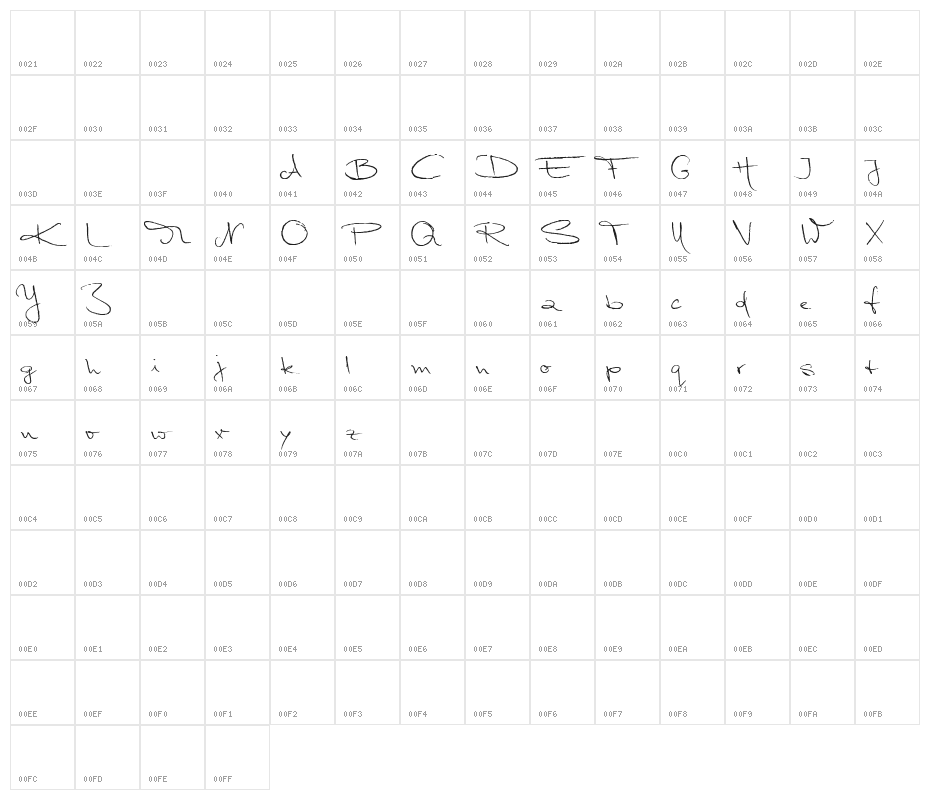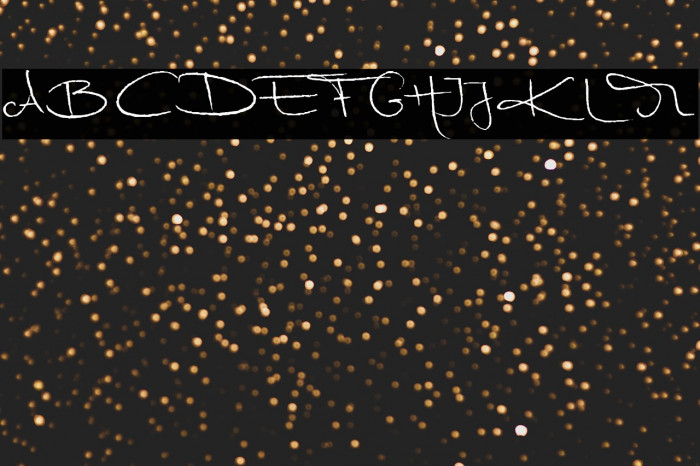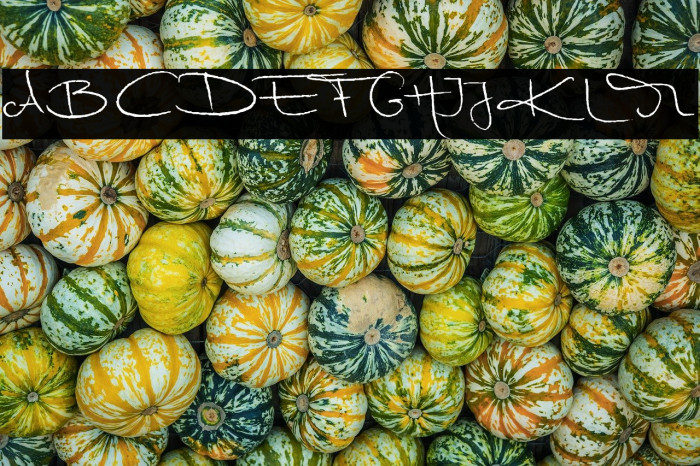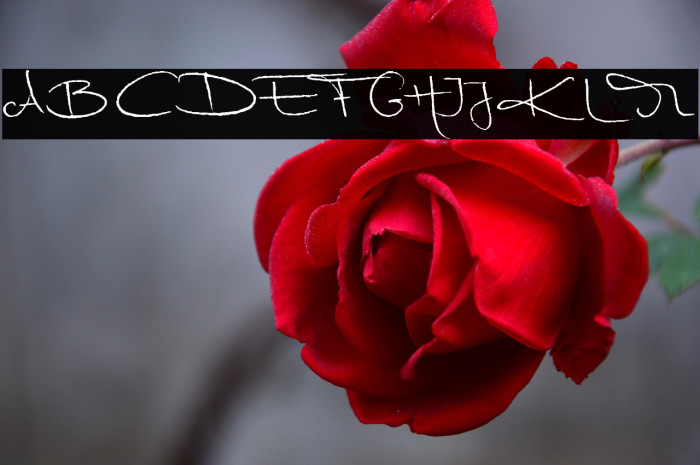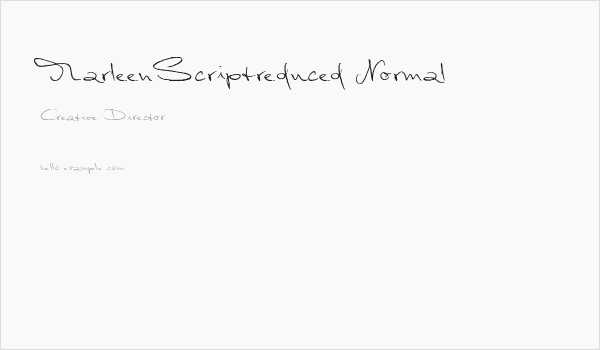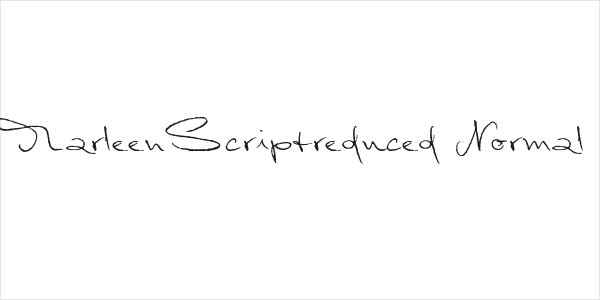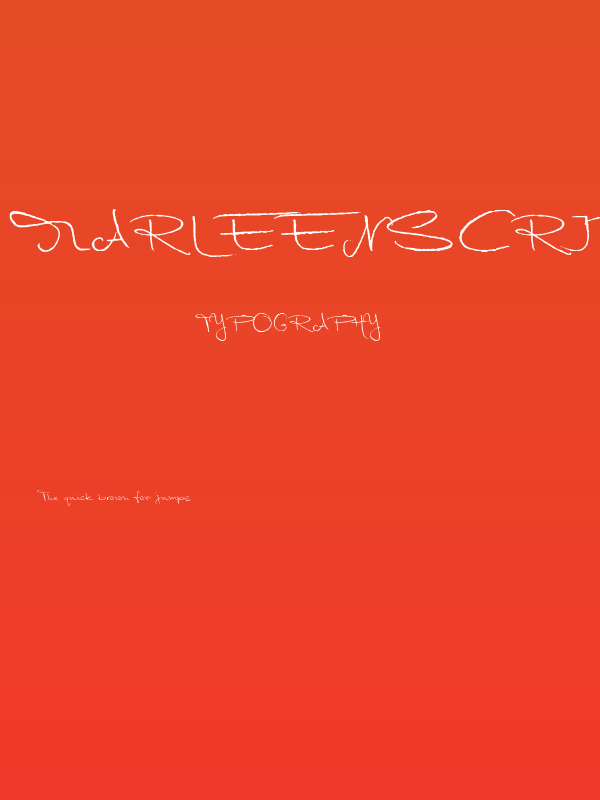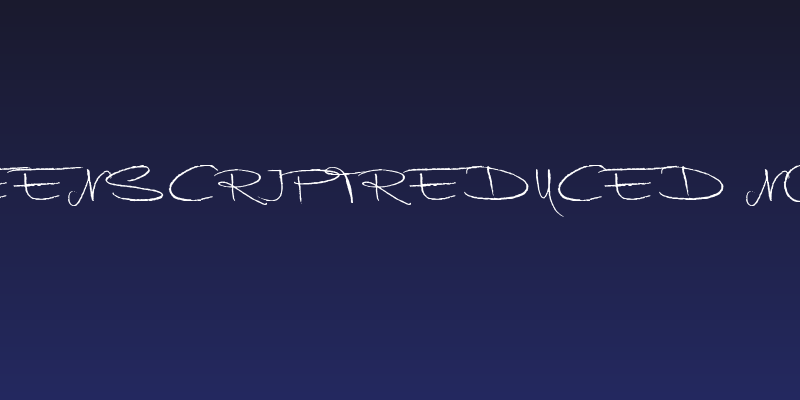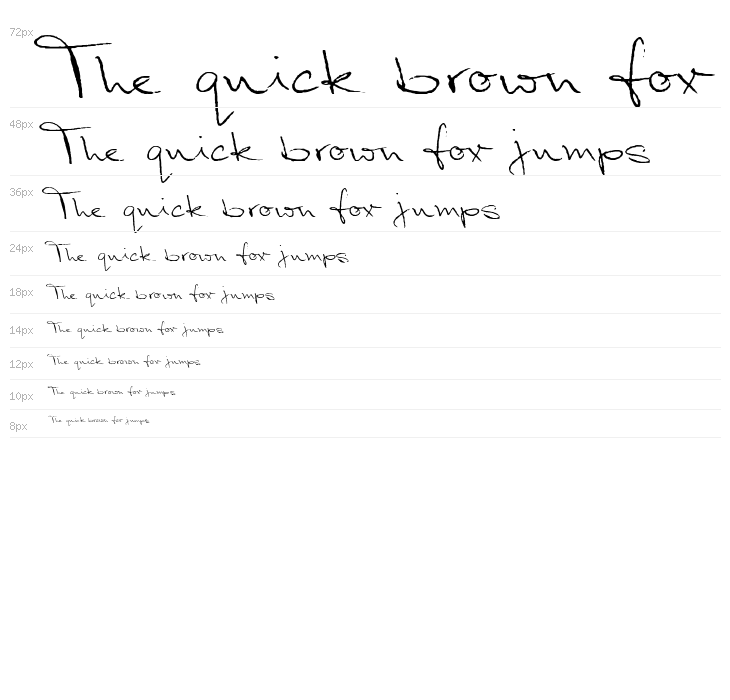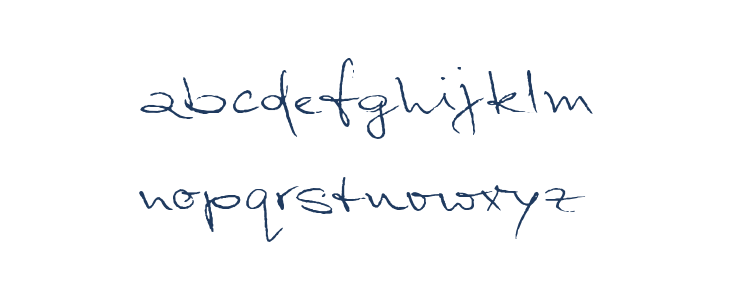
MarleenScriptreduced-Normal Font
MarleenScriptreduced-Normal Description
This font exhibits a dynamic and expressive handwritten style, characterized by its fluid and organic strokes. The letters are crafted with a sense of spontaneity, giving the impression of being drawn with a quick, confident hand. The uppercase letters maintain a consistent height, while the lowercase letters vary in size, adding to the casual and informal feel. The strokes are uneven, with some lines appearing thicker and others thinner, contributing to a lively and textured appearance. The overall design is reminiscent of a personal script, making it suitable for projects that require a touch of personality and warmth.
| Use Case | Logos, Headlines, Artistic projects |
| Proposed Projects | Ideal for personal invitations, greeting cards, artistic branding, and creative projects that require a personal touch. |